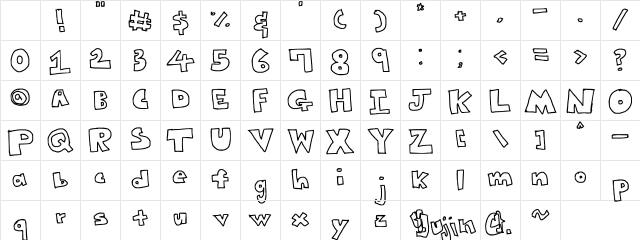
Yujin Bubbles has an approachable, lighthearted character - its loose, expressive forms are well-suited to children's content, casual branding, and fun-first design.
Font Pairing: Pairs well with a rounded or humanist sans for body copy, maintaining the friendly tone without relying on Yujin Bubbles to carry extended reading.
Pro Tip: Use Yujin Bubbles at larger display sizes where its expressive character can land. Pair with a clean, simple sans for body copy to maintain readability.